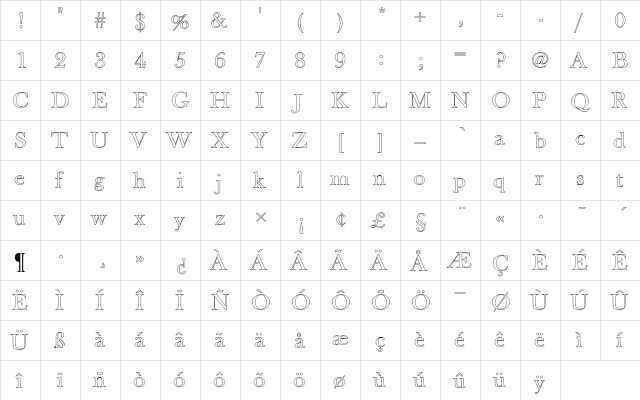
Baskerville Old Face D Ou1 Regular
Design Context for Baskerville Old Face D Ou1 Typeface
Baskerville Old Face D Ou1 is a composed and adaptable typeface that performs quietly and consistently across a wide range of design contexts.